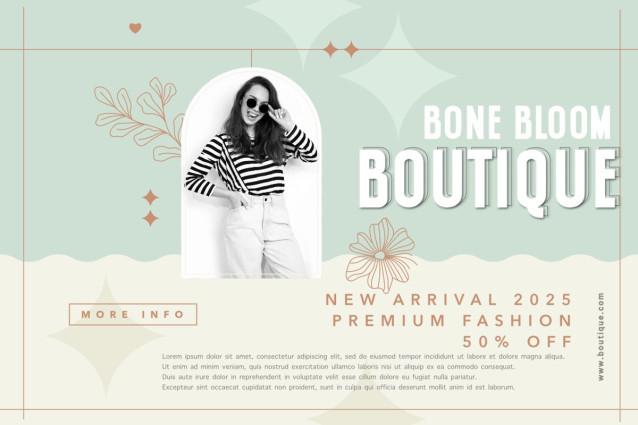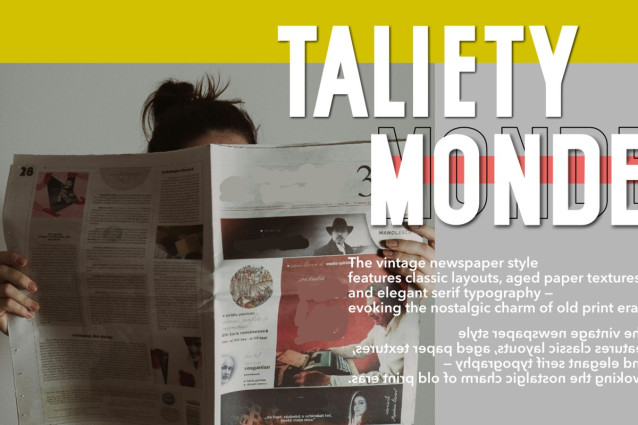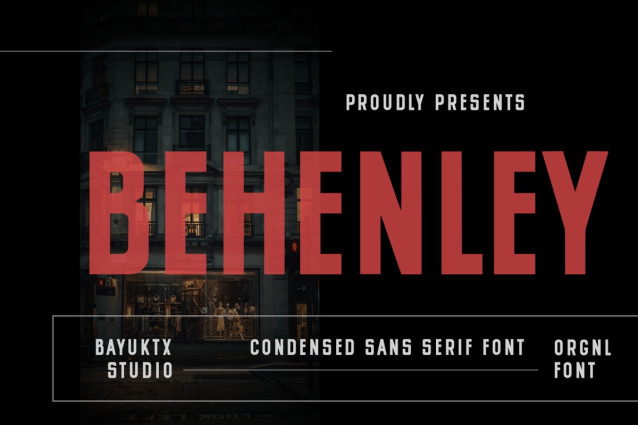
Behenley Font
Behenley Font blends modern confidence with bold urban aesthetics. Its tall, clean letterforms and compact proportions create a powerful visual impact — perfect for designs that demand strength, structure, and sophistication.
Inspired by city architecture and contemporary fashion, Behenley delivers a balance of minimalism and assertive style. Each character is crafted to enhance clarity while maintaining a distinctive, editorial tone that elevates any layout.